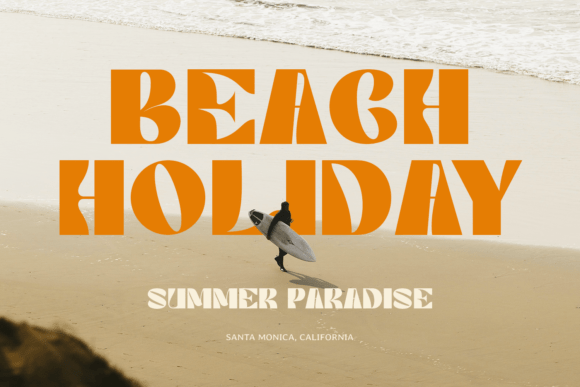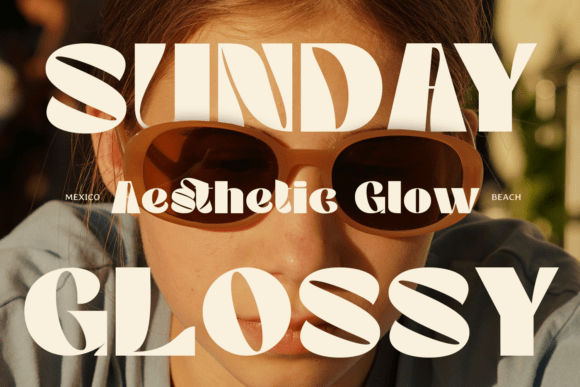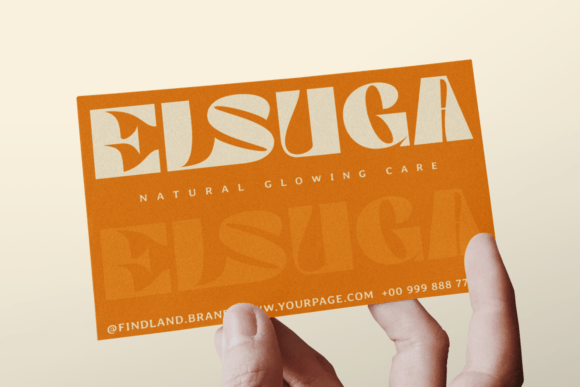
Introduction to Glare Font
Glare brings vibrant retro flair with a modern edge to your designs.
Crafted with meticulous detail and bold characters, this retro display font is ideal for projects that call for a nostalgic yet daring touch Perfect for logos, holiday cards, wedding invitations, quotes, advertisements, and more.
Key Features of Glare Font